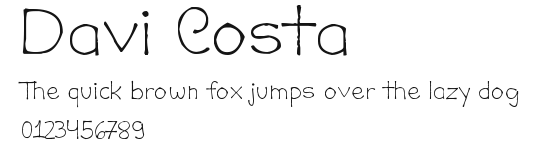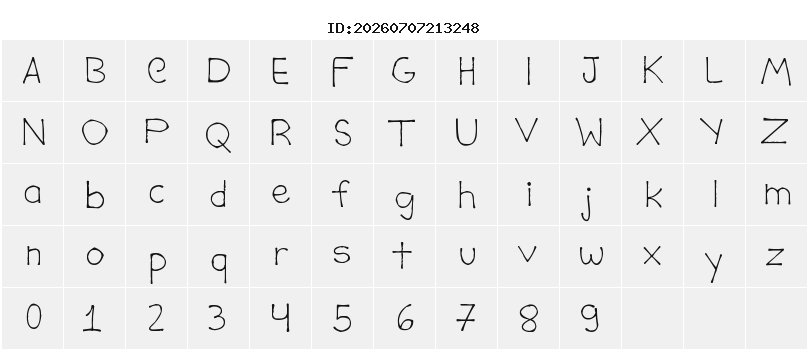
Davi Costa Preview
• Font Name: Davi Costa
• Full Font Name: Davi Costa
About Davi Costa.ttf
Davi Costa.ttf is a modern, elegant sans-serif font designed for ultimate readability and visual harmony. Perfect for branding, headlines, web design, and print materials.